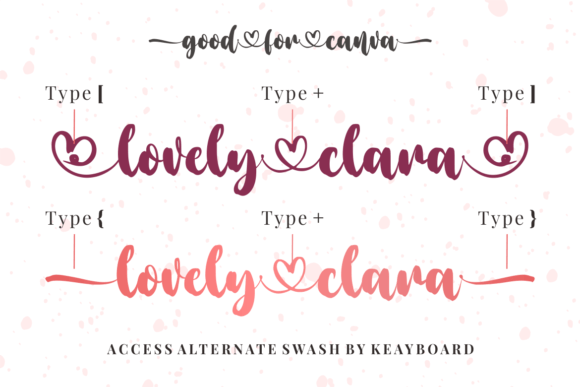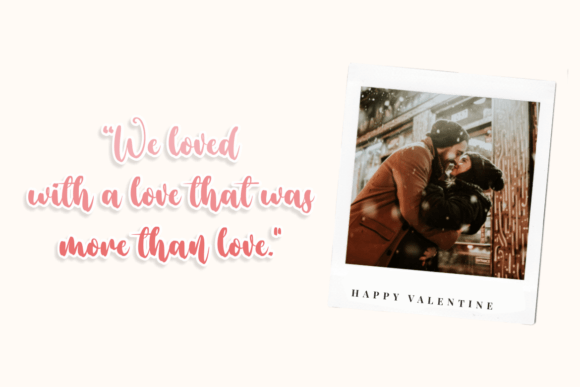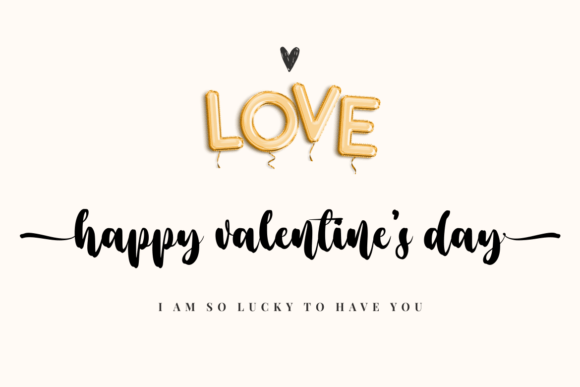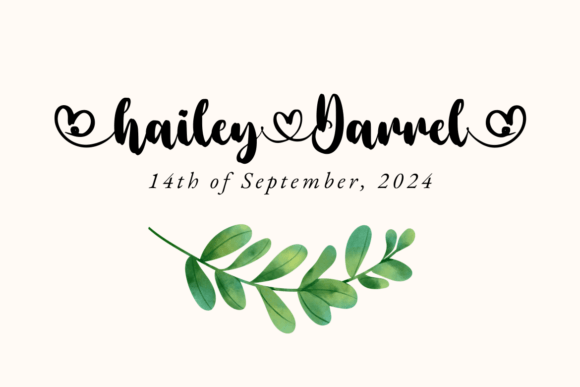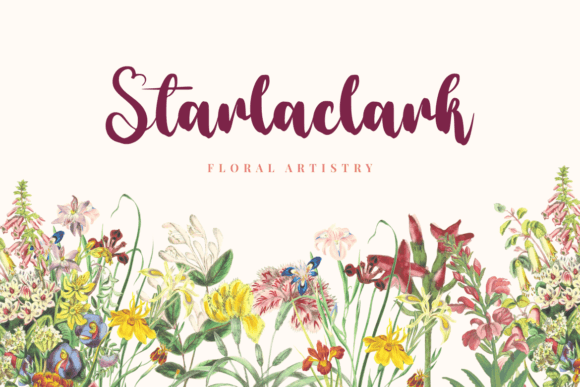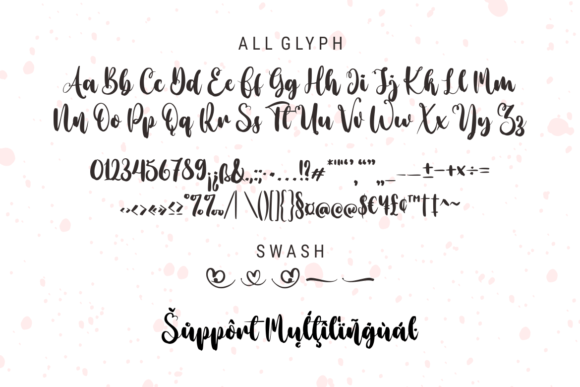
Introduction to Lovely Clara Font
Lovely Clara is a lovely and stylish handwritten font suitable for a wide spectrum of applications.
From greeting cards to headlines, this font will guarantee a romantic touch to each of your creations .
Key Features of Lovely Clara Font
Why Choose Lovely Clara Font?
Lovely Clara Font offers exceptional quality and versatility, making it a valuable addition to your design toolkit. Whether you’re creating for personal projects or commercial use, Lovely Clara Font delivers professional results.